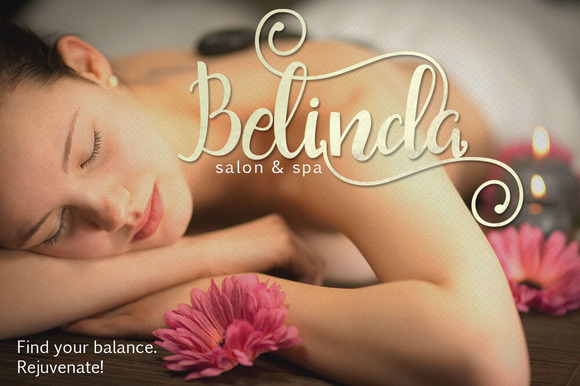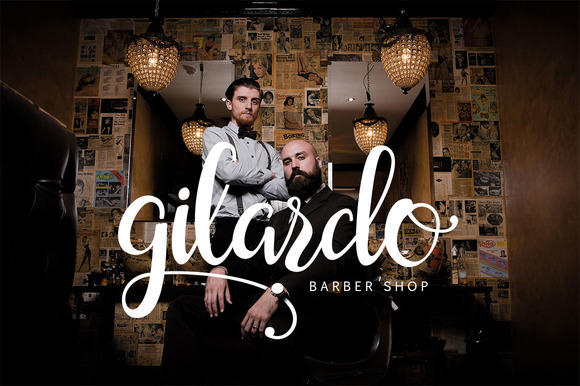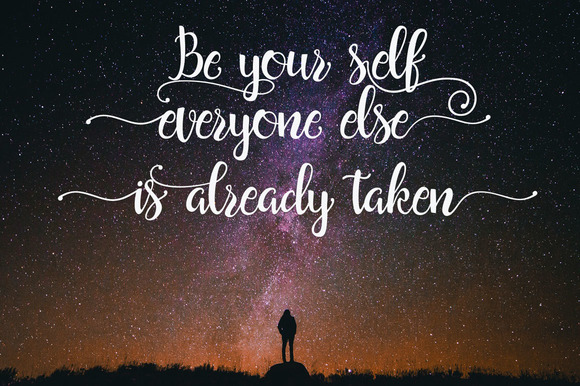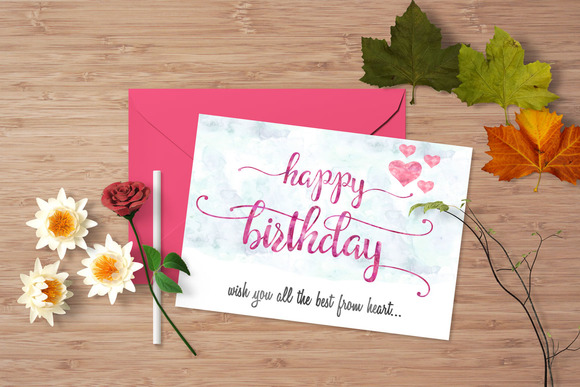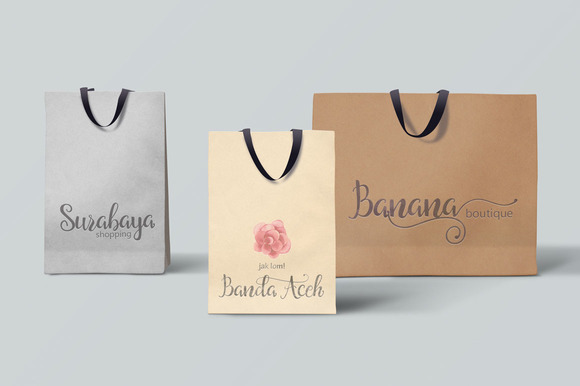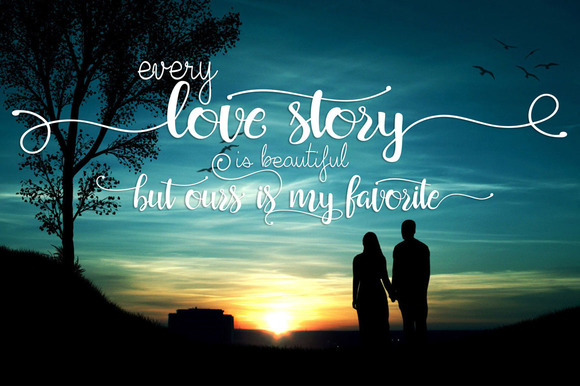
Introduction to Saldina Font
Have you ever stared at a blank page, pen in hand, searching for the perfect font to bring your creative project to life? That’s exactly where the Saldina Font comes in – a game-changing script font that combines the organic feel of brush lettering with the elegance of traditional handwriting. Whether you’re working on a design project or just need a reliable font for your next creative endeavor, Saldina Font is the perfect design resource to elevate your work.
What sets Saldina Font apart from other fonts is its versatility and flexibility. With its high-quality design, it’s easy to match with other typefaces to create some beautiful designs, making it an ideal choice for designers looking for a reliable and stylish font.
Key Features of Saldina Font
- Includes a range of characters and glyphs, including Latin and Cyrillic alphabets, making it a versatile design resource.
- Designed with a modern aesthetic, Saldina Font is ideal for use in contemporary creative projects, such as branding and advertising materials.
Honest Review: Saldina Font
As a designer, I’ve had the pleasure of working with numerous fonts for various creative projects. Recently, I stumbled upon the Saldina Font, and I’m excited to share my honest review.
- Unique and elegant design: The Saldina Font boasts a distinctive and sophisticated appearance that’s perfect for modern designs.
- High quality: The font’s crisp and clean lines ensure that it looks great on any screen or printing medium.
- Limited language support: Unfortunately, the Saldina Font only supports a limited number of languages, which may be a drawback for some designers.
Overall, I’m impressed with the Saldina Font’s quality and design. While it may have some limitations, it’s a valuable design resource that’s definitely worth considering for your next creative project.
The Saldina Font is ideal for:
- Creating eye-catching headings and titles.
- Adding a modern touch to your designs.
- Designing marketing materials and social media graphics.